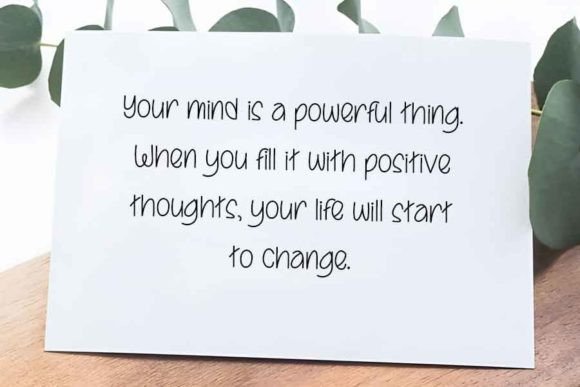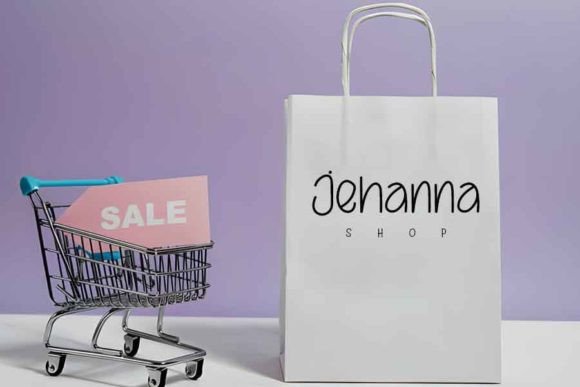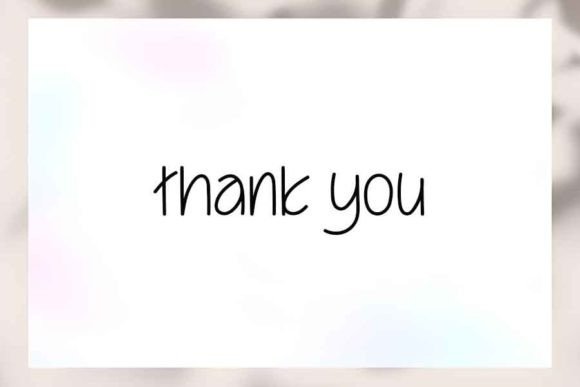
Introducing Frankie Font: The Simple yet Powerful Handwritten Font
Are you tired of using the same old fonts for your creative projects? Look no further than Frankie Font, a beautiful and simple handwritten font that can elevate your designs to the next level. Frankie is an incomparable and simple letter handwritten font that can easily be matched to an incredibly large set of projects, so add it to your creative ideas and notice how it makes them stand out!
The Versatility of Frankie Font
One of the best things about Frankie Font is its versatility. Its simple and clean design makes it perfect for a wide range of projects, from digital designs to print materials. Whether you’re working on a logo, brochure, poster, or social media graphic, Frankie Font is sure to make your design stand out. Its unique and elegant style can add a touch of sophistication and personality to any project.
Key Features of Frankie Font
- Simple and Handwritten Design: Frankie Font has a beautiful handwritten design that is simple, yet elegant. Its clean lines and curves make it easy to read and perfect for a wide range of projects.
- Highly Versatile: Frankie Font can be used for a variety of projects, including digital designs, print materials, logos, brochures, posters, and more.
- Easily Readable: Frankie Font is highly legible, making it perfect for body text, headings, and titles.
- Unique and Elegant Style: Frankie Font has a unique and elegant style that can add a touch of sophistication and personality to any project.
How to Use Frankie Font in Your Designs
Using Frankie Font in your designs is easy. Here are a few tips to get you started:
- Pair it with Other Fonts: Frankie Font can be paired with other fonts to create a unique and interesting design. Try pairing it with a bold font for headings and a clean font for body text.
- Use it for Headings and Titles: Frankie Font is perfect for headings and titles. Its elegant style and high legibility make it easy to read and understand.
- Add it to Your Digital Designs: Frankie Font can be used for digital designs, including social media graphics, website headers, and more.
- Experiment with Different Colors and Textures: Frankie Font can be used with a variety of colors and textures to create a unique and interesting design.
Benefits of Using Frankie Font
There are many benefits to using Frankie Font in your designs. Here are a few:
- Stand Out from the Crowd: Frankie Font is a unique and elegant font that can help your designs stand out from the crowd.
- Easy to Read: Frankie Font is highly legible, making it perfect for body text, headings, and titles.
- Versatile: Frankie Font can be used for a wide range of projects, from digital designs to print materials.
- Adds a Touch of Sophistication: Frankie Font has a unique and elegant style that can add a touch of sophistication and personality to any project.
In conclusion, Frankie Font is a simple yet powerful handwritten font that can elevate your designs to the next level. Its versatility, elegance, and high legibility make it perfect for a wide range of projects. Whether you’re a designer, crafter, or DIY enthusiast, Frankie Font is a great addition to your font collection. So why not give it a try and see how it can make your designs stand out?